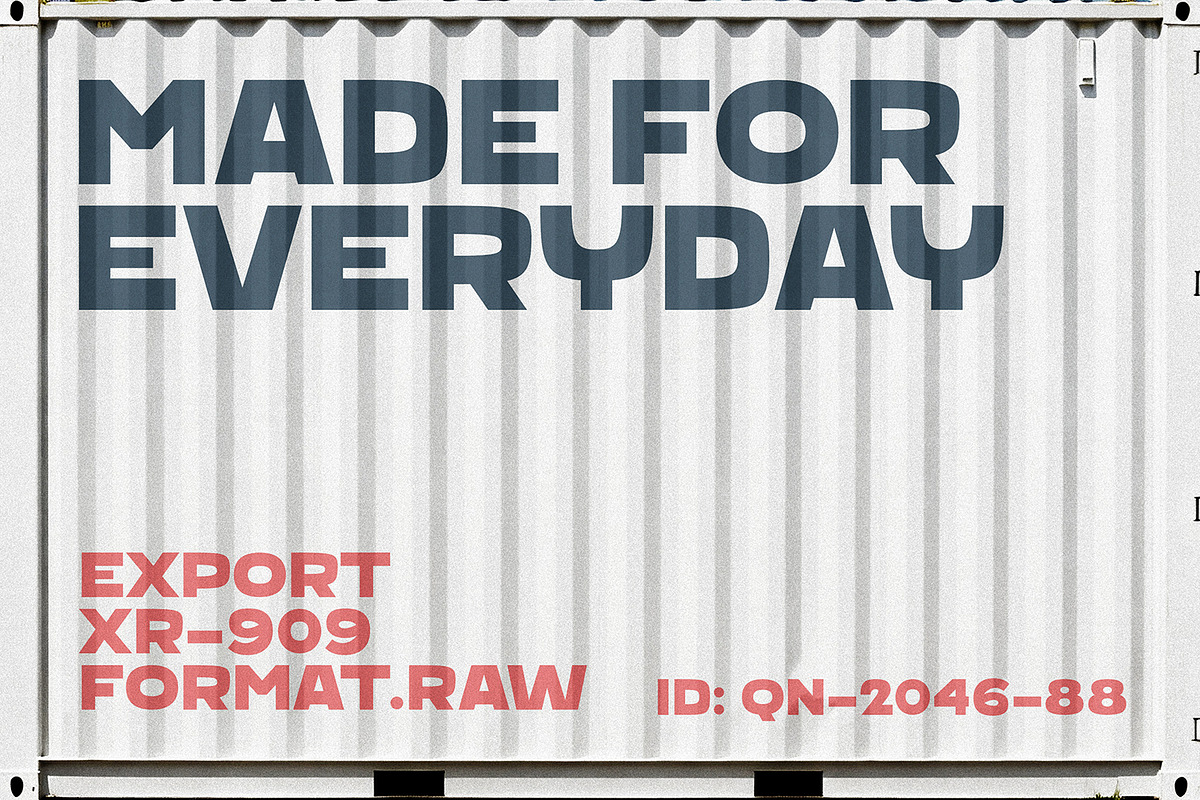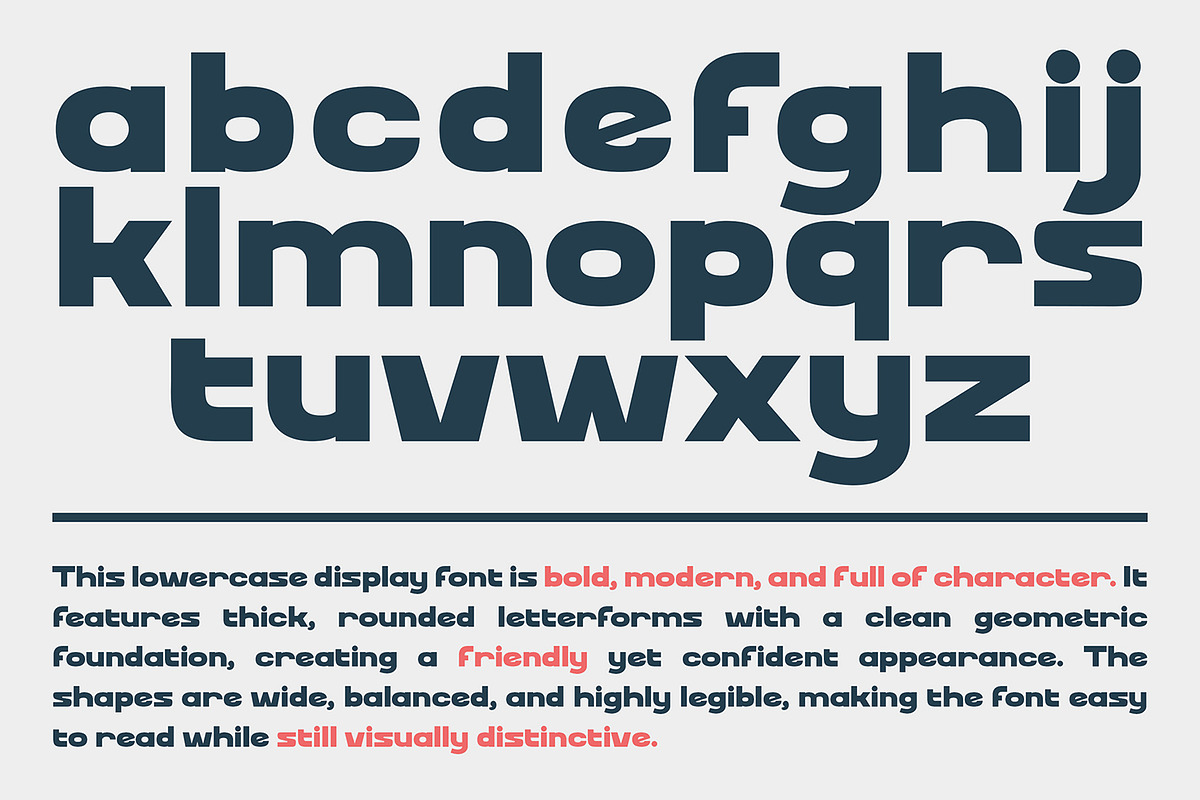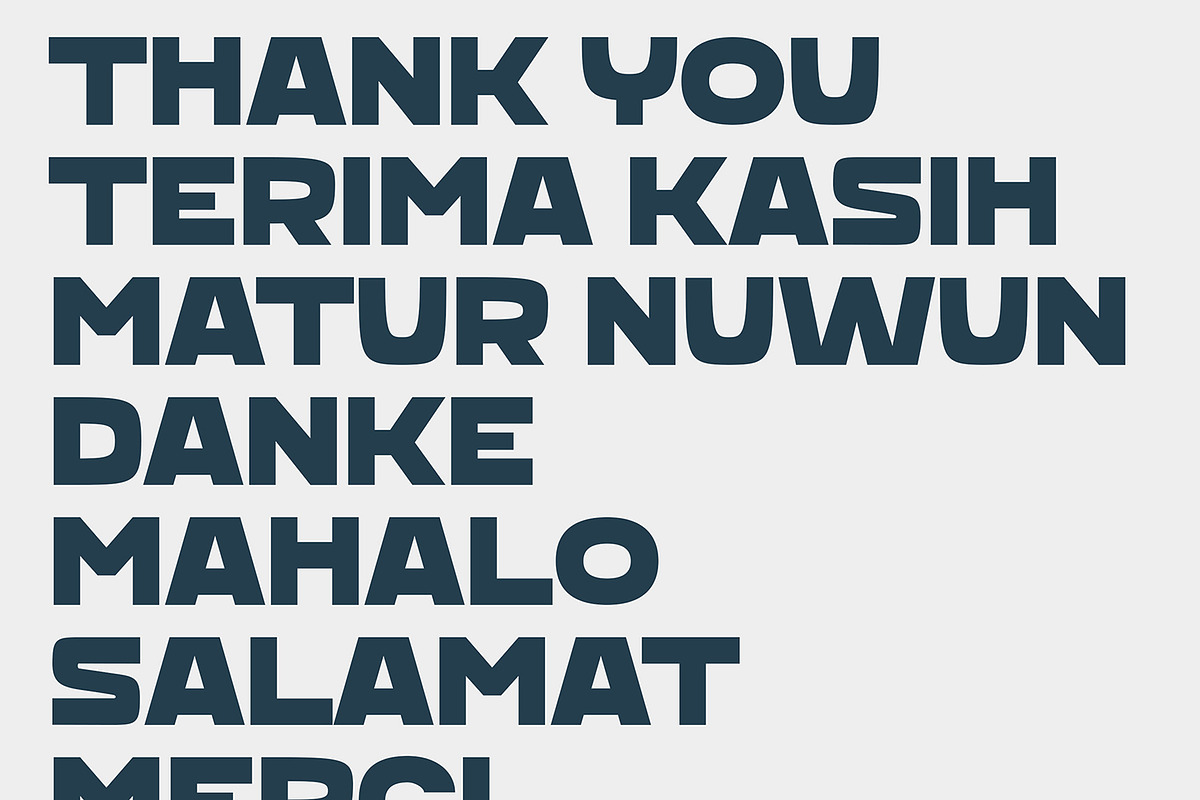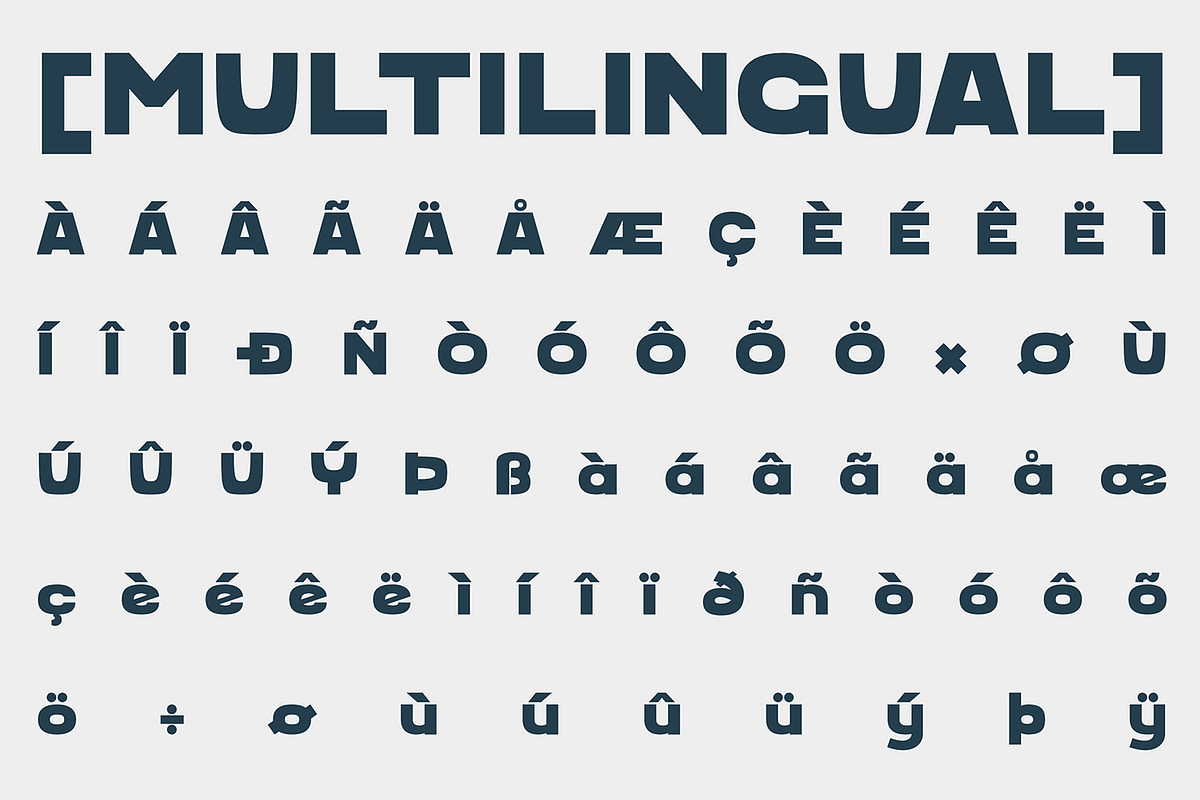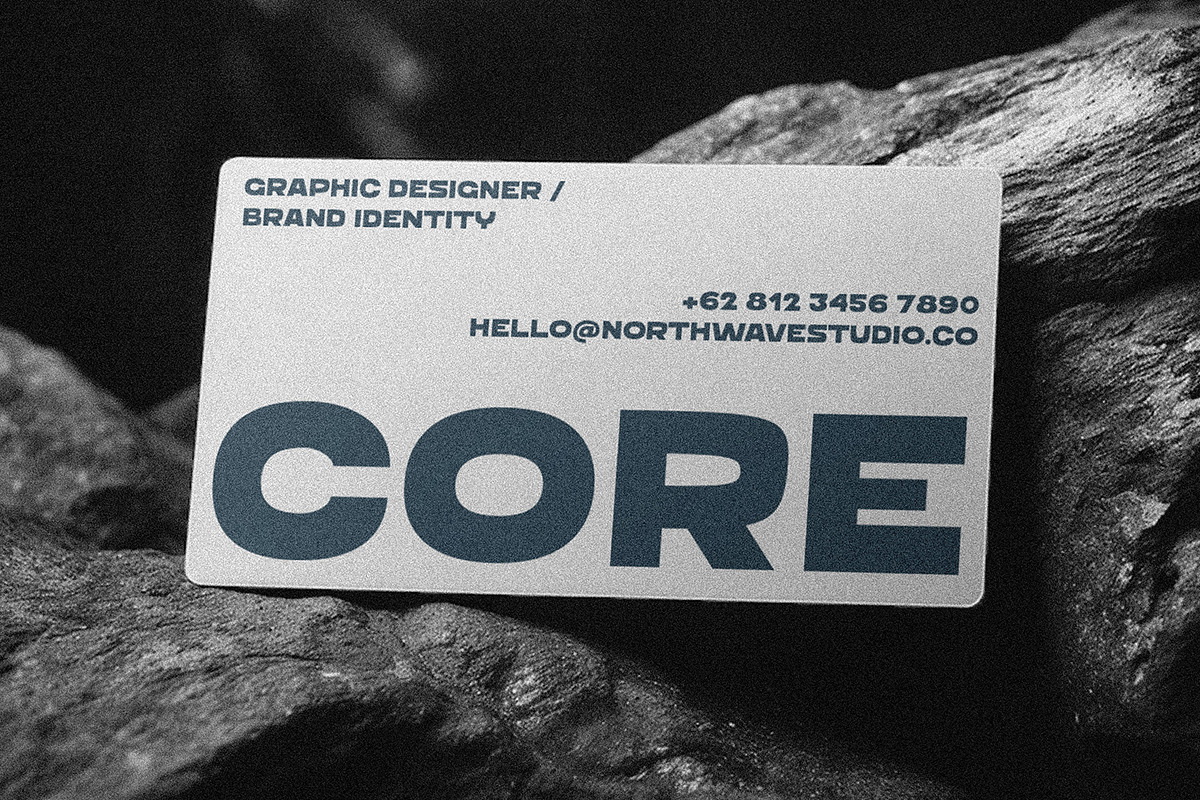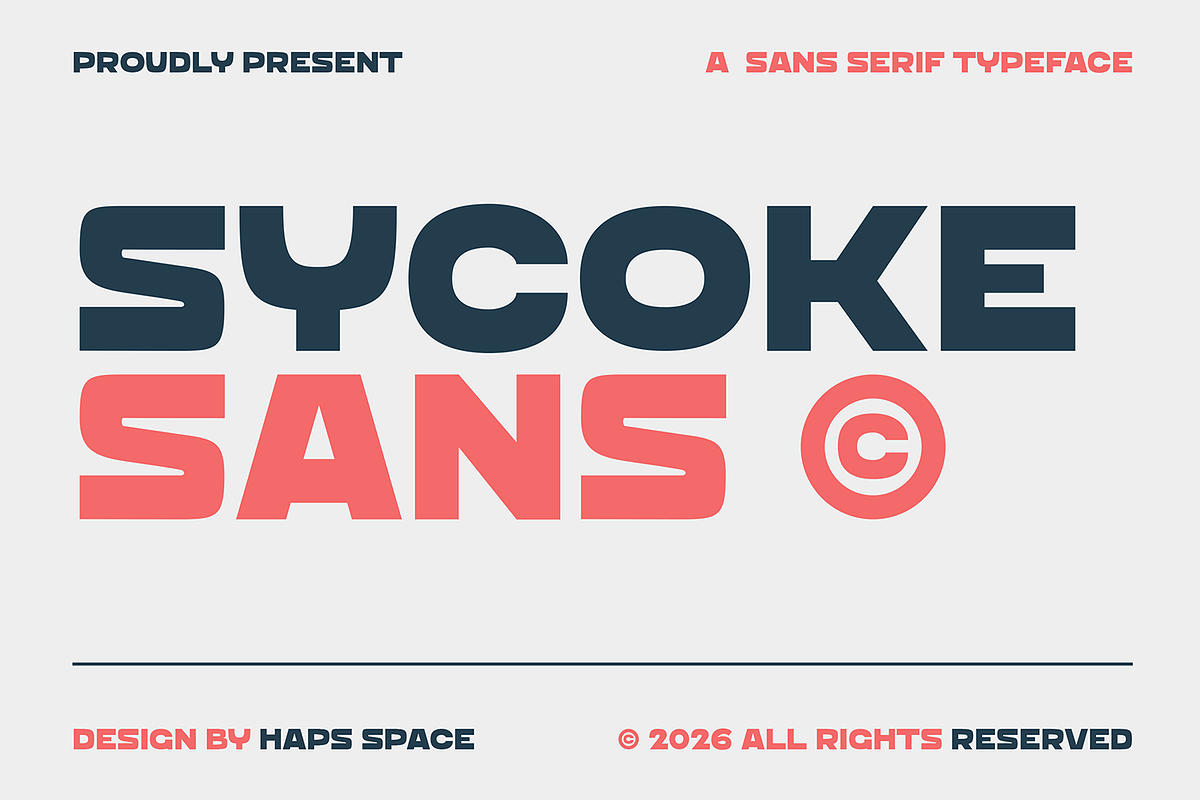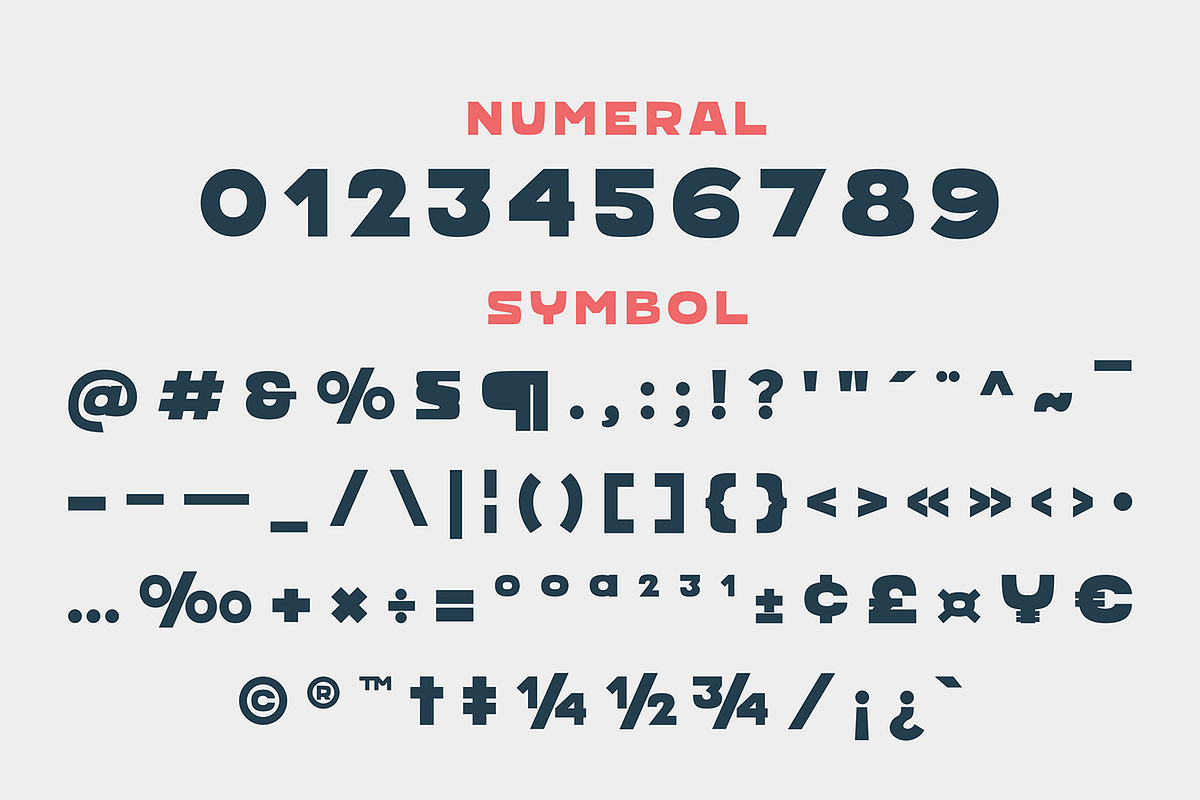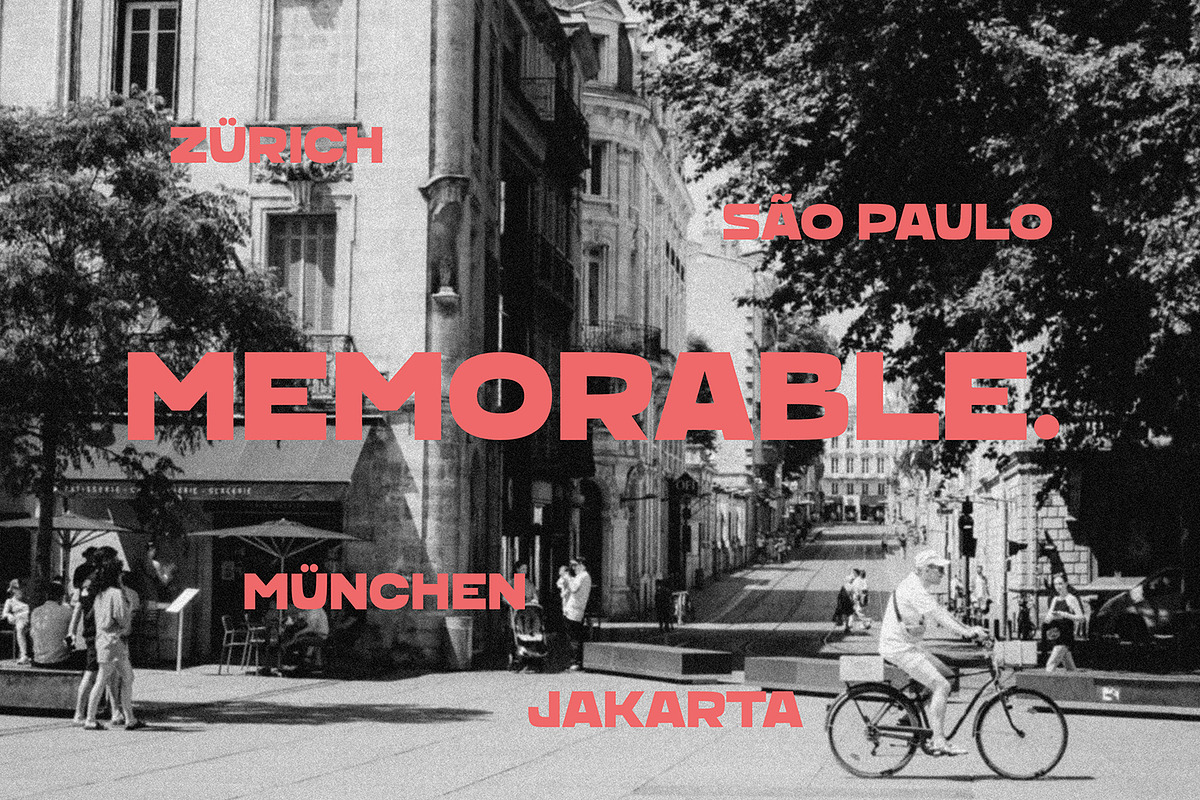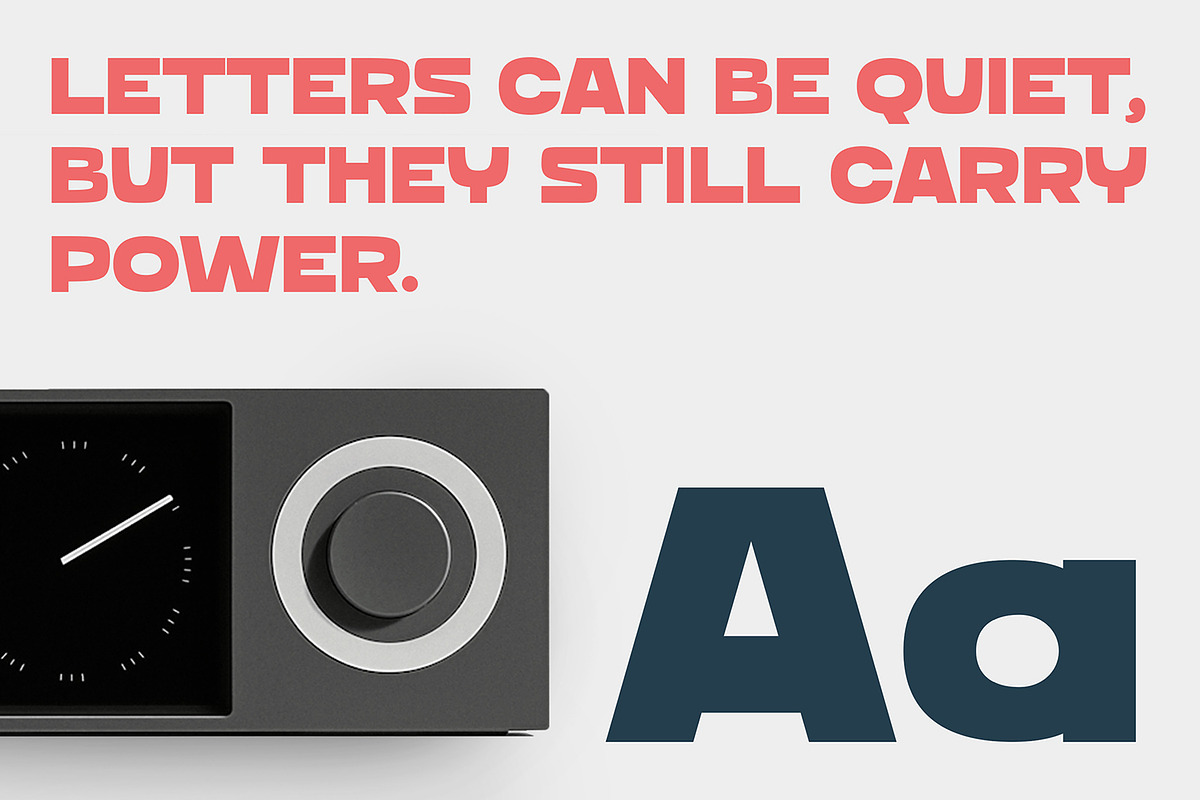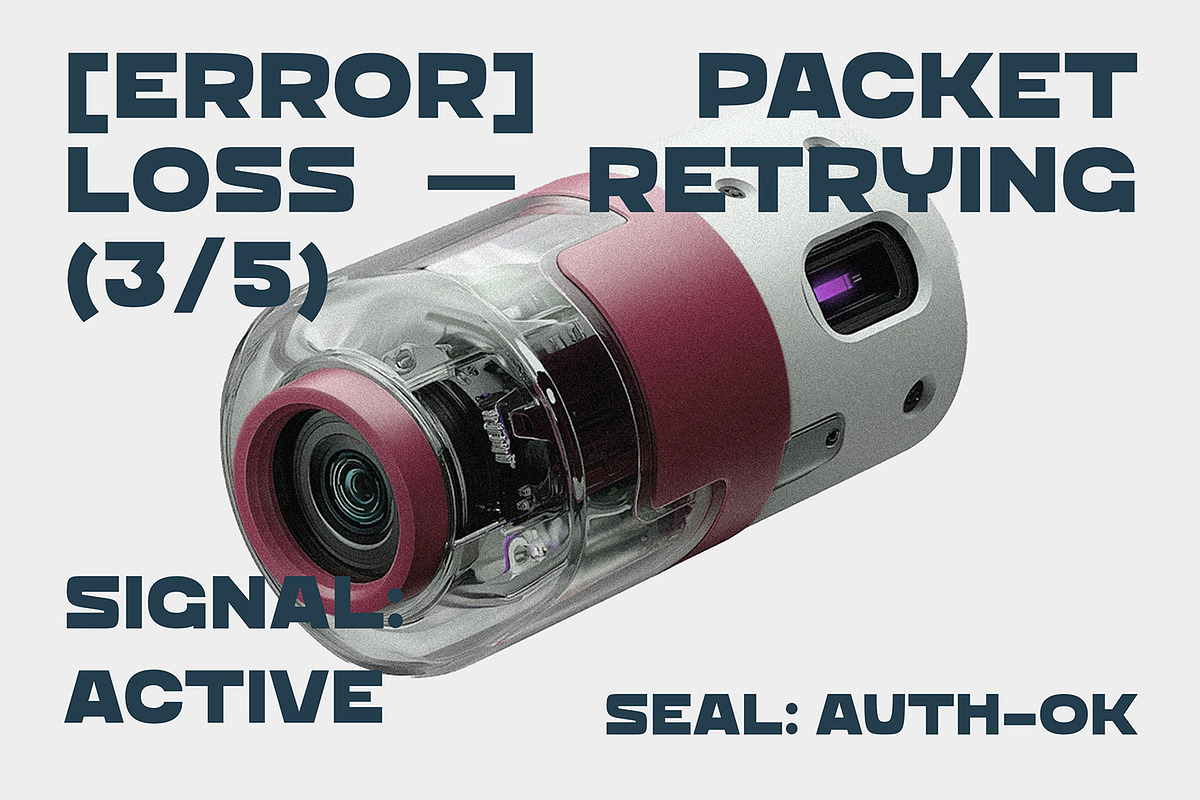
Sycoke Sans Bold Sans
Sycoke Sans is a bold modern sans serif typeface designed with strong geometric shapes and clean lines. Its solid structure and contemporary style make it highly versatile for professional and creative design projects. The balanced proportions and bold presence allow the font to stand out clearly in both large headlines and impactful layouts.
Sycoke Sans is perfect for branding, posters, logos, advertising, and modern graphic design that requires a strong, confident typographic style.